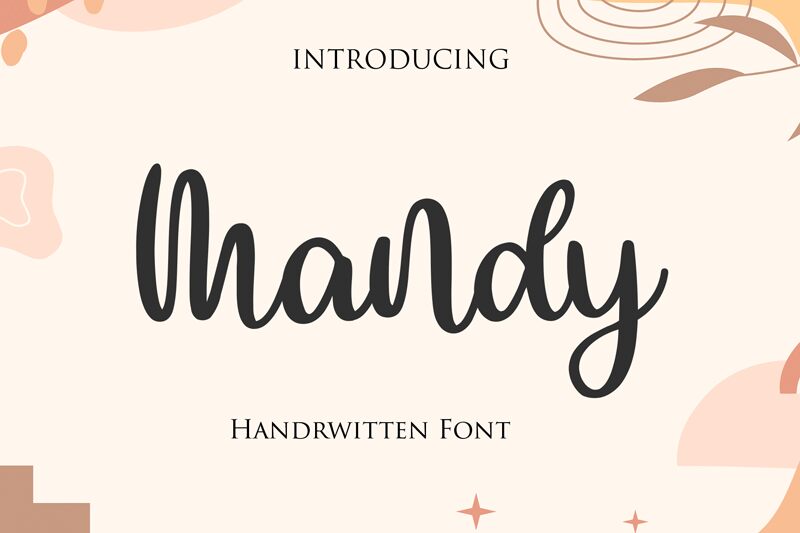
Meet Mandy, the enchanting handwritten font by Bearytype. With its whimsical strokes and graceful curves, Mandy brings a touch of elegance to any project. From wedding invitations to branding materials, this semi-bold typeface is perfect for adding a dash of sophistication to your designs. Its versatility makes it suitable for a wide range of projects, including greeting cards, feminine blogs, fashion magazines, and children's book covers. Let Mandy's unique charm captivate your audience and infuse your creations with a hint of timeless beauty. Elevate your typography game with Mandy today!